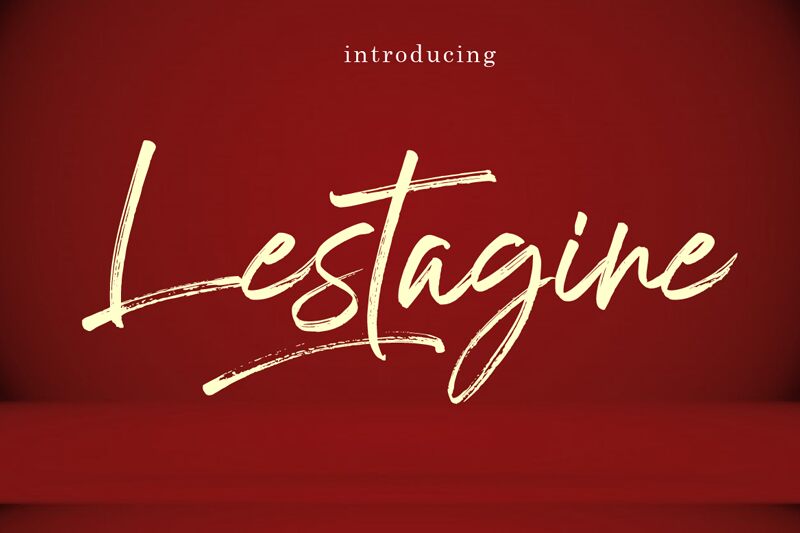
Lestagine
Lestagine is a modern handwritten brush. This font is made from a brush pen with fast but elegant strokes, which creates natural strokes. Perfect for all your designs that require a handwritten feel.